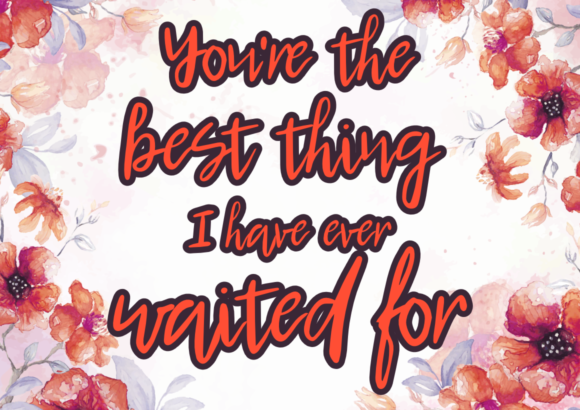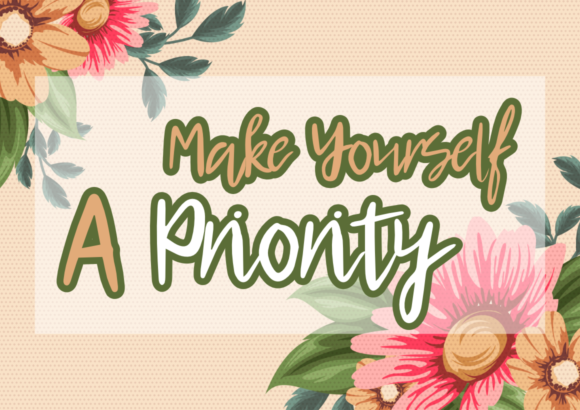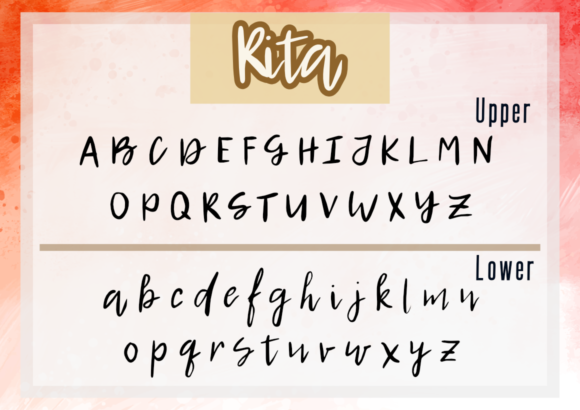
About Rita Font
Rita is a cute and modern handwritten font with an incredibly friendly feel. This enchanting handwritten font will turn any creative idea into a true standout. Whether you’re looking for fonts for Instagram or calligraphy scripts for DIY projects, this font will turn your design project into a true piece of art!